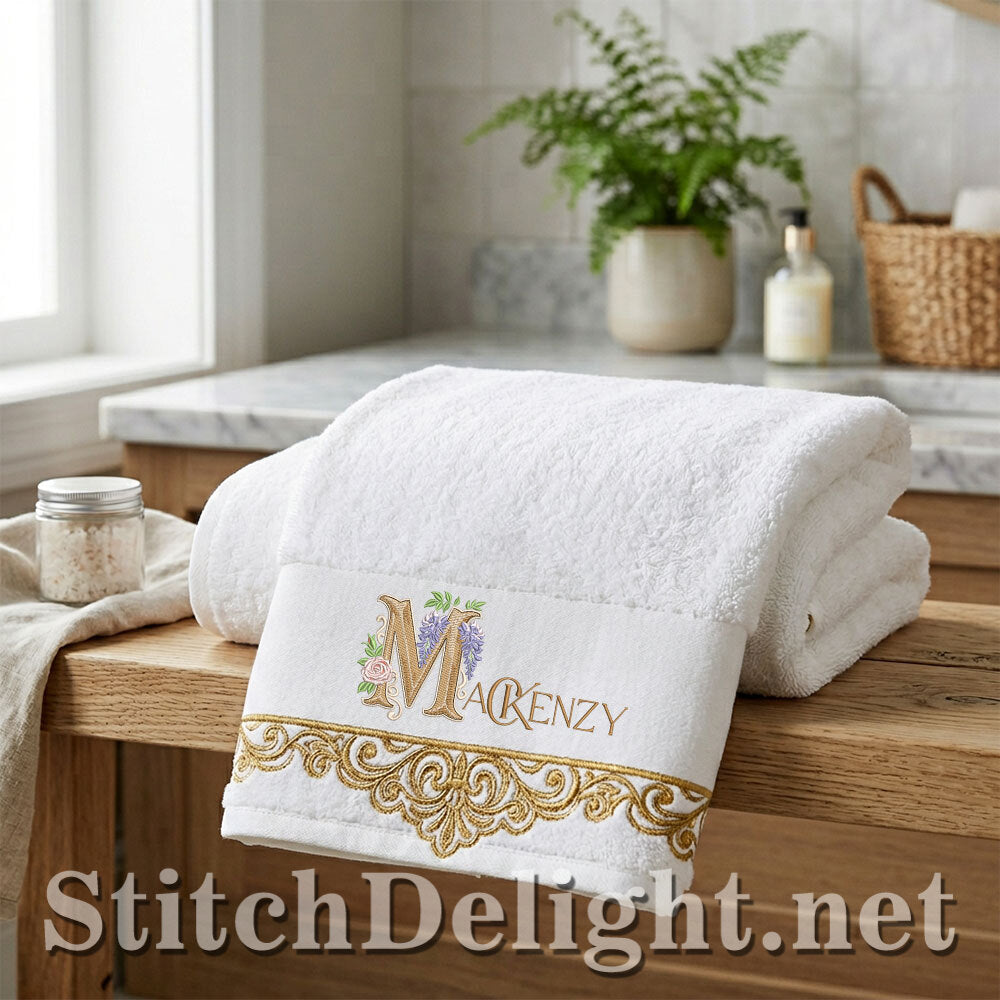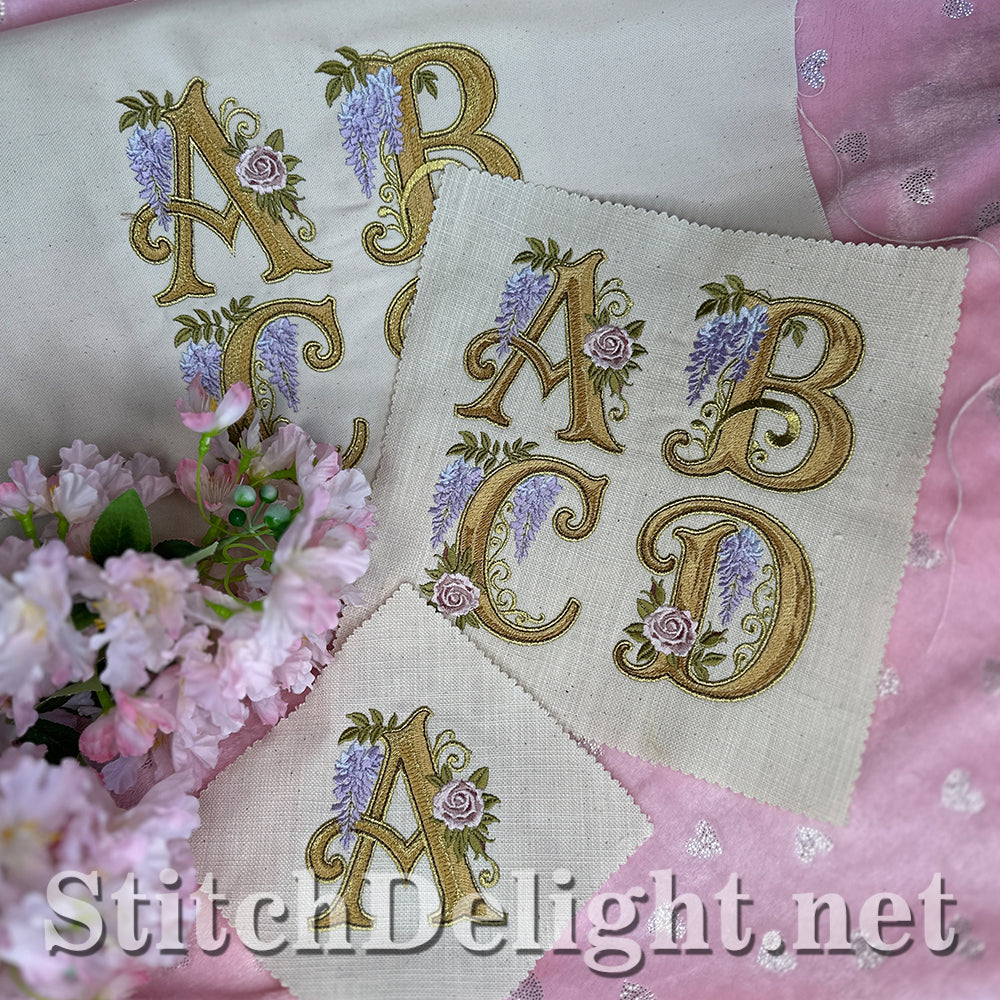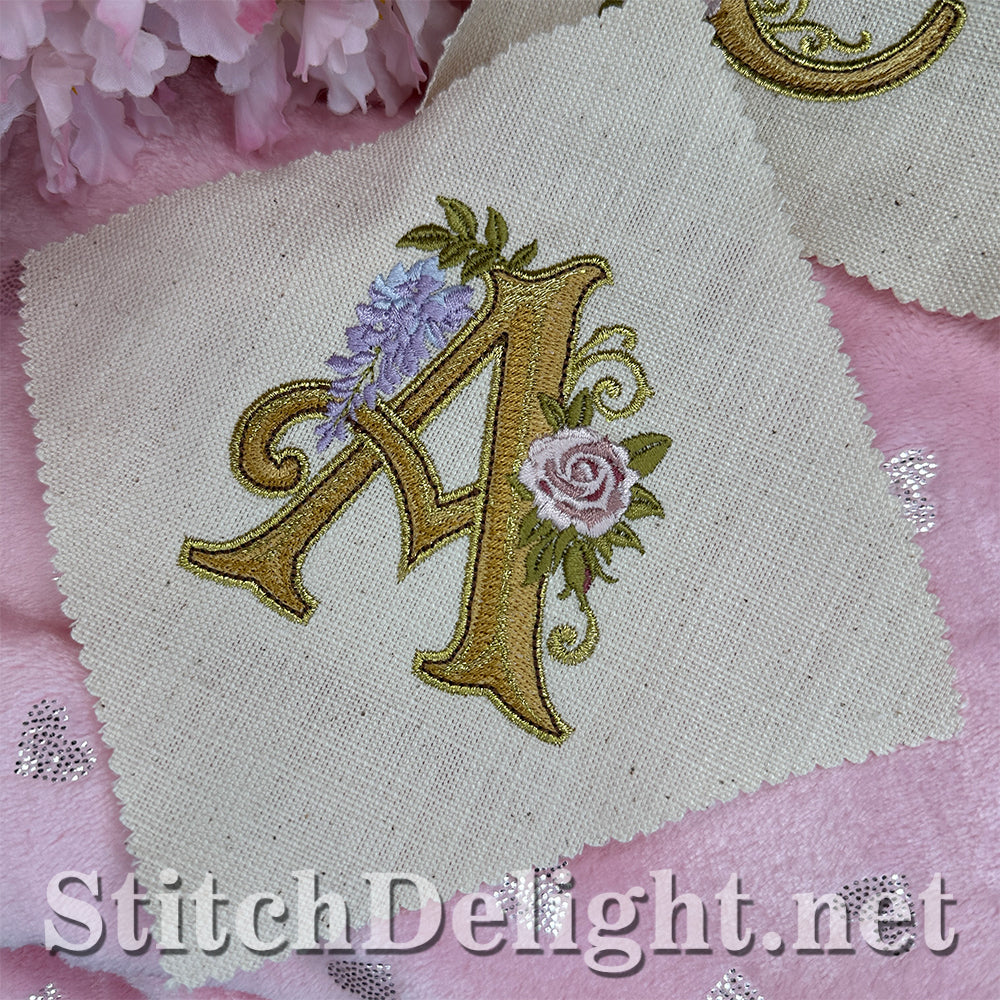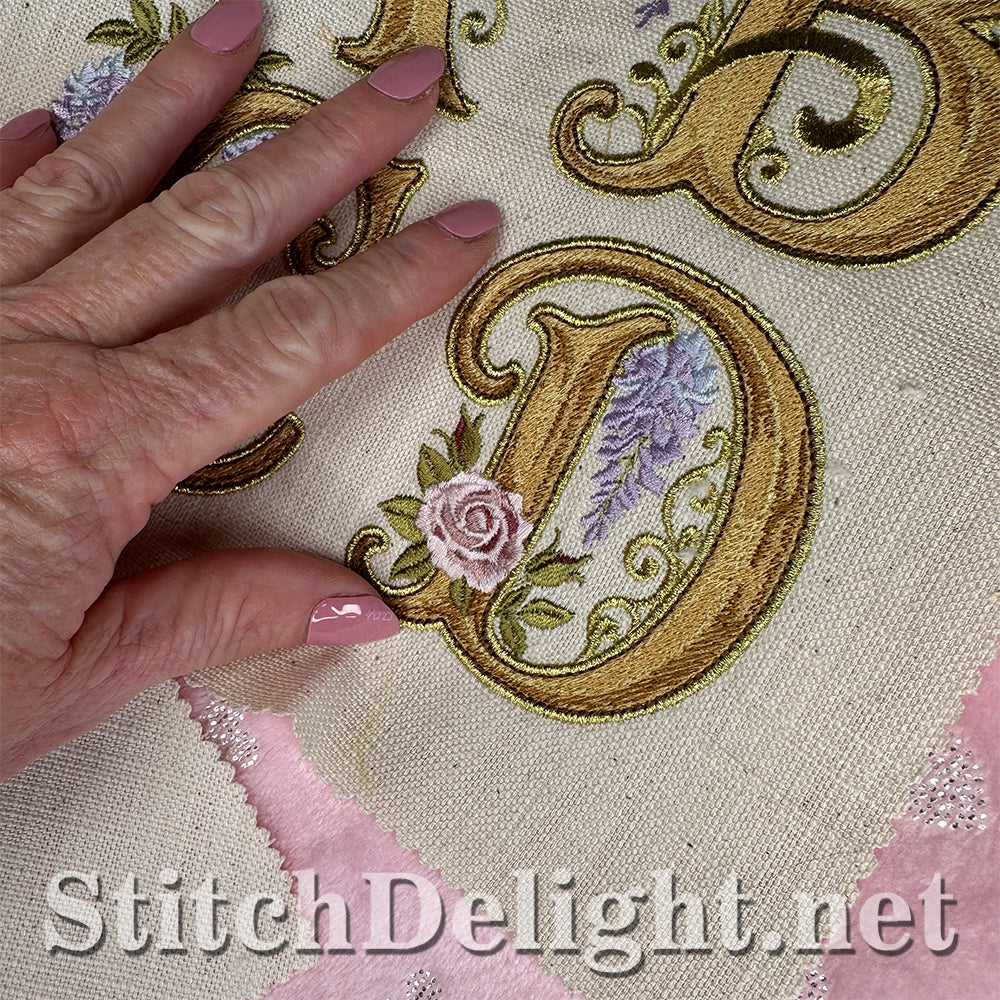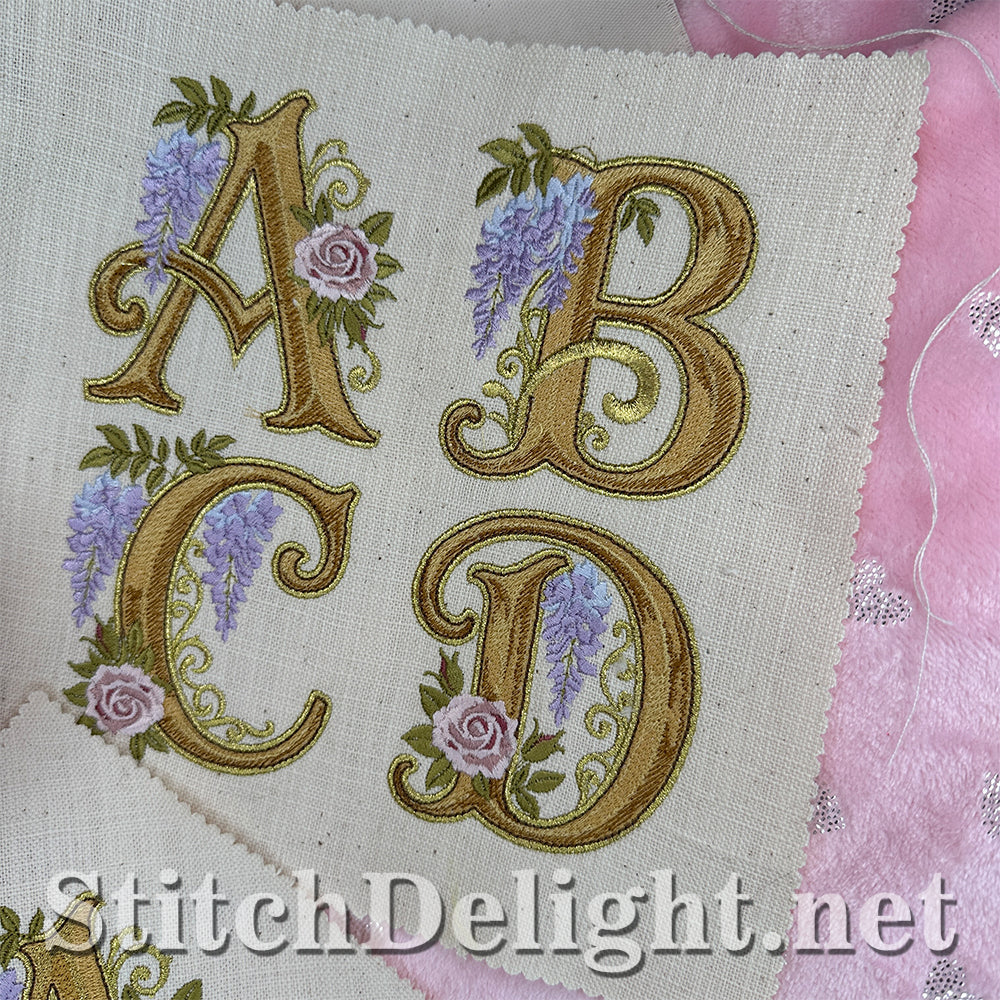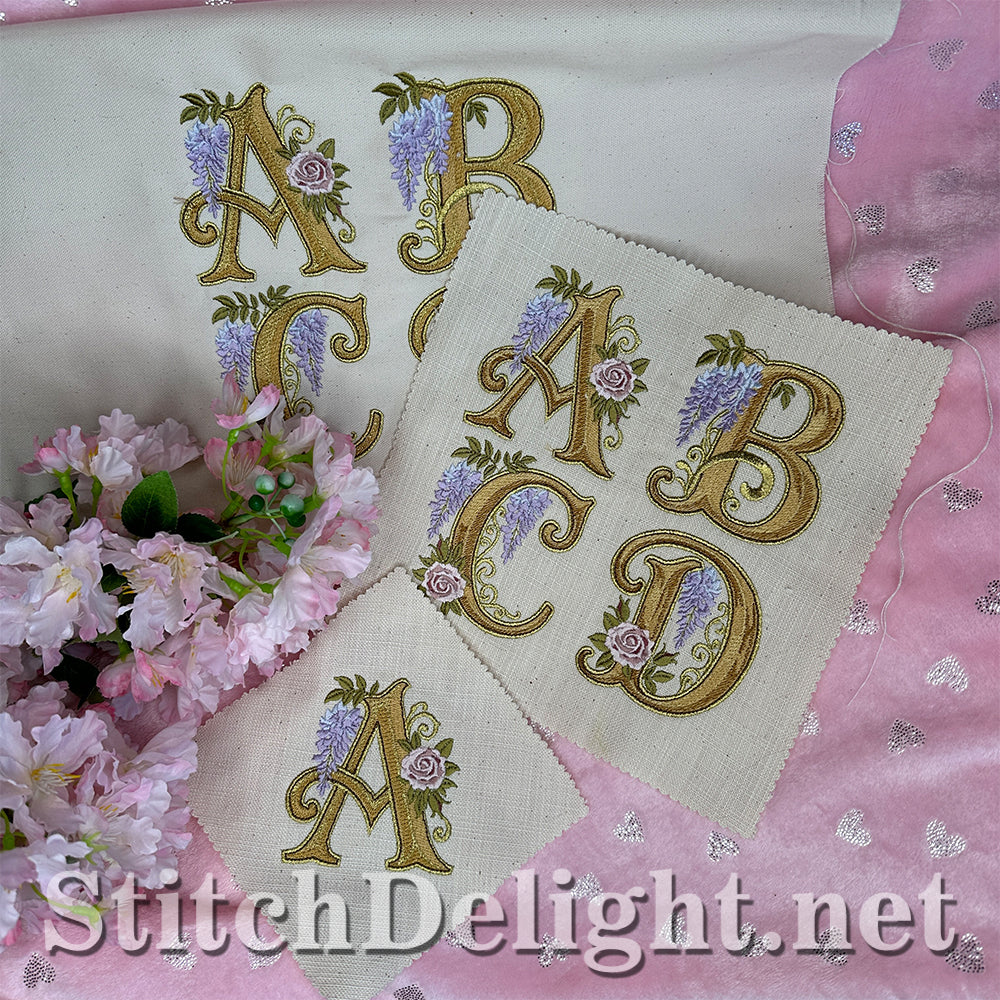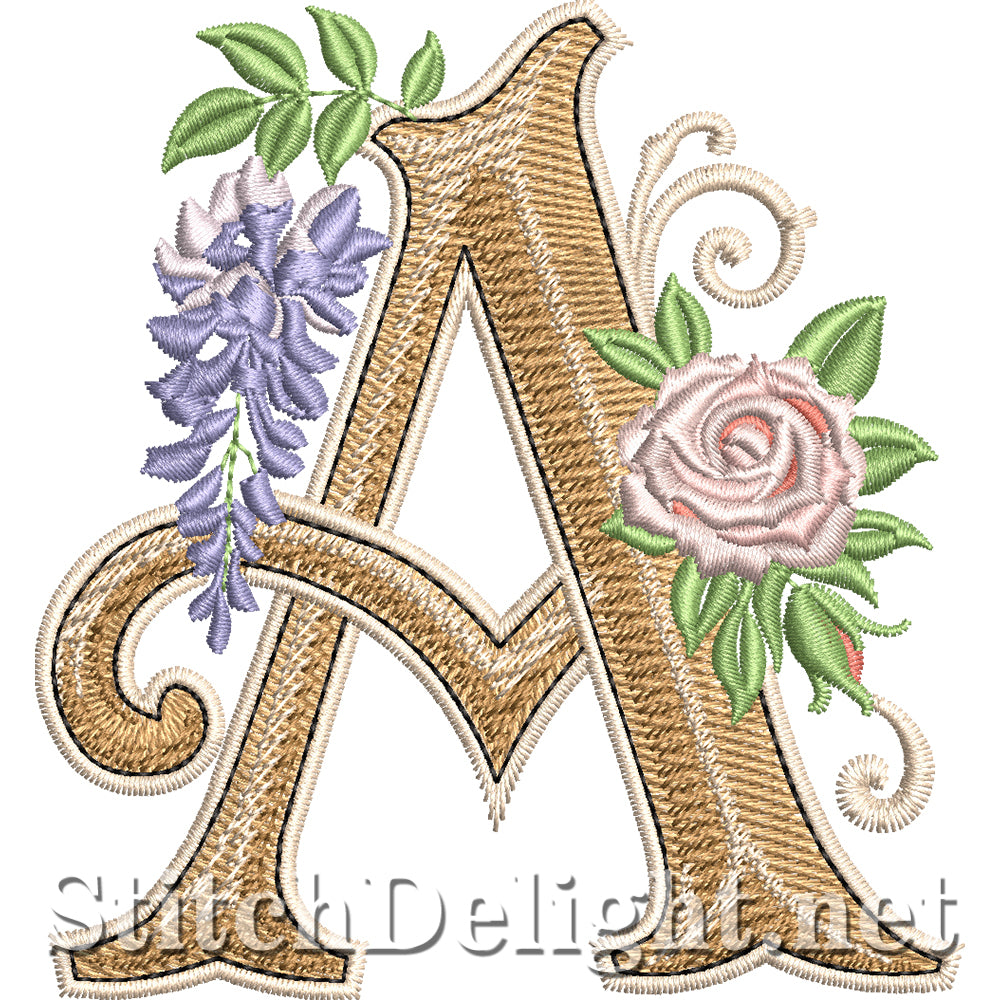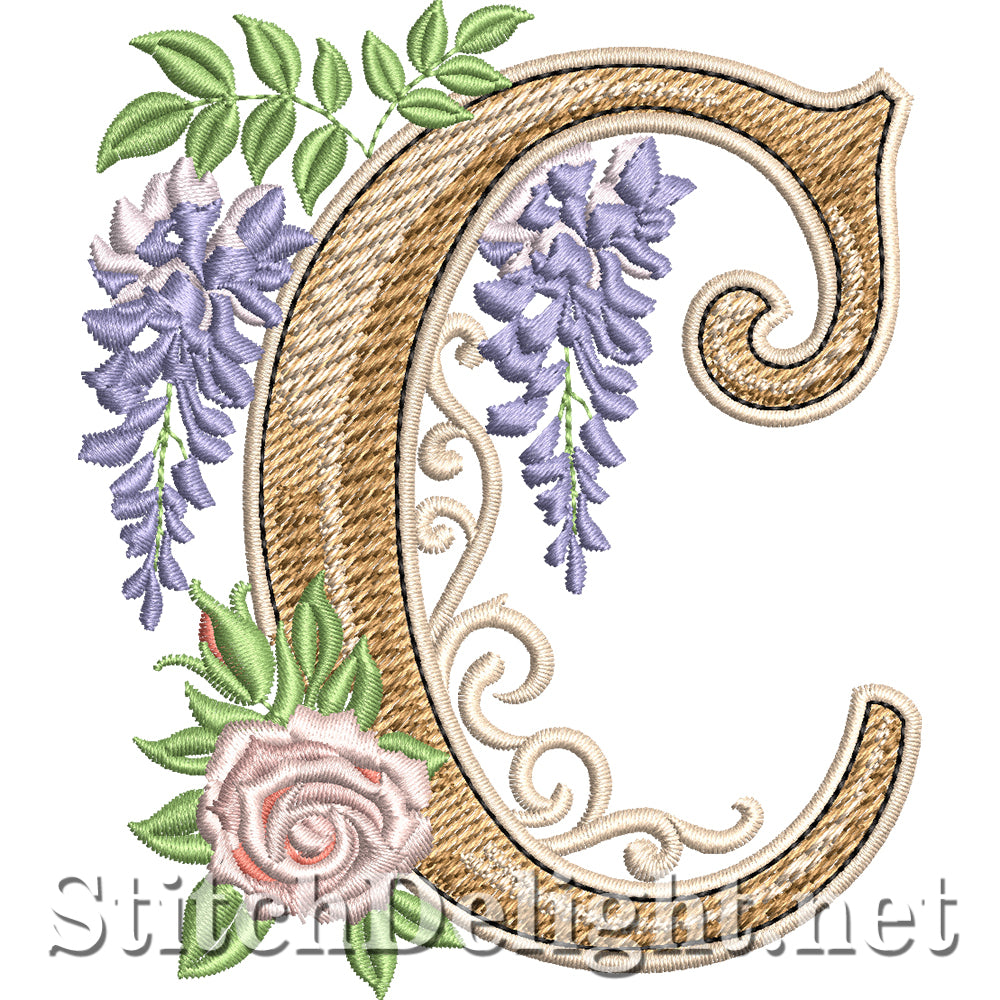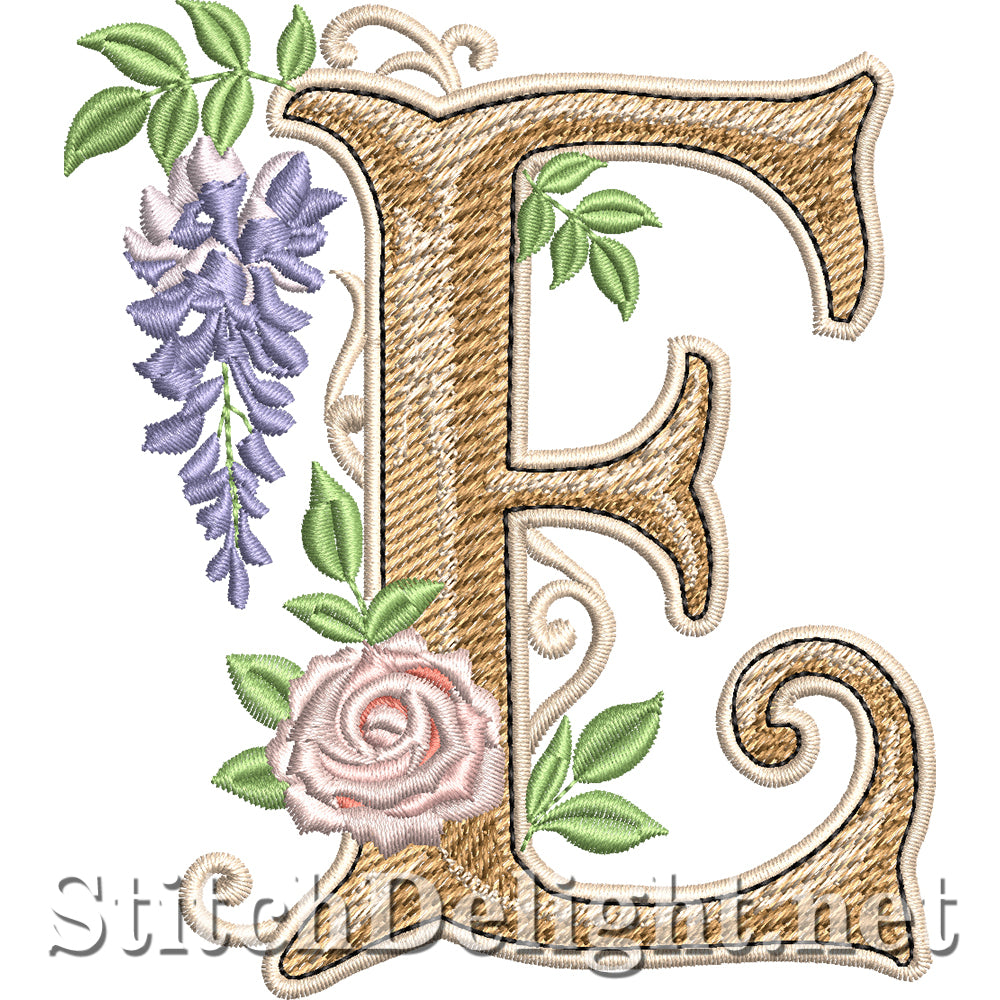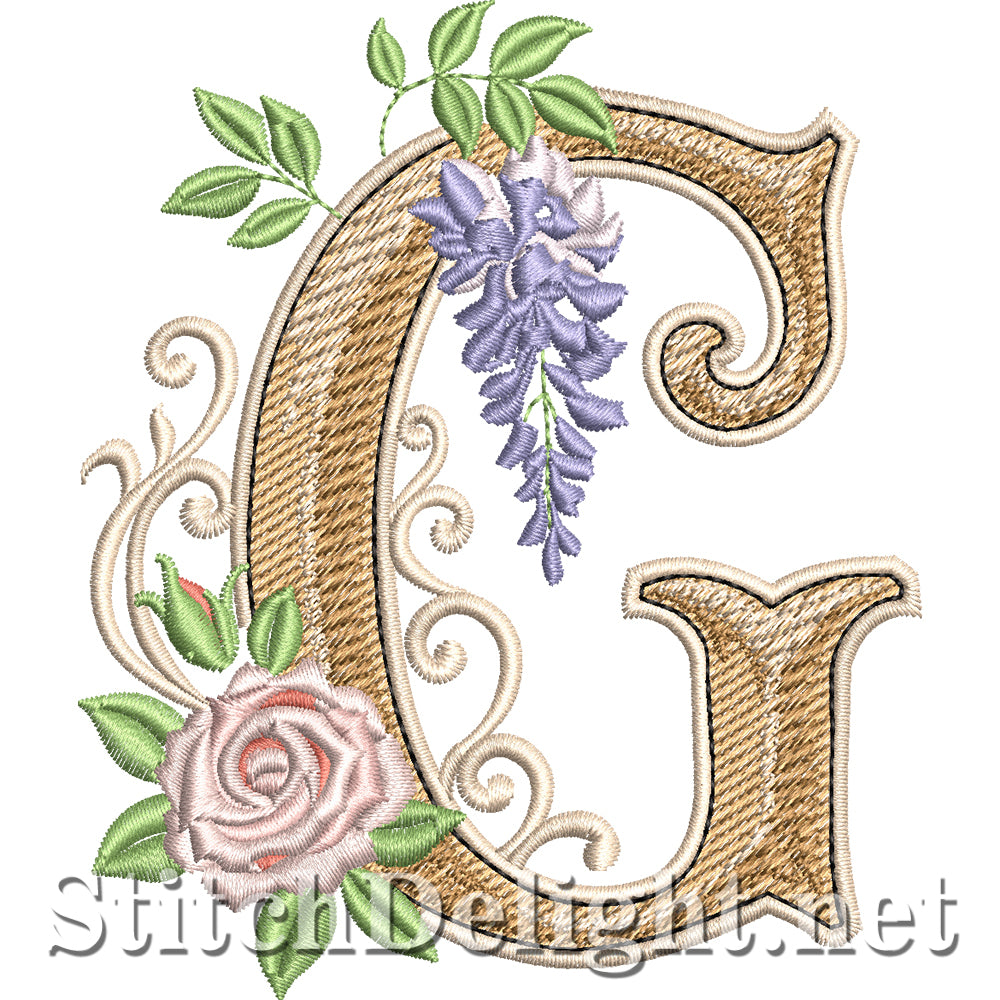
🌸 Floral Picture Font – A Touch of Bridgerton Elegance
Step into a world of timeless romance with our Floral Picture Font — a design inspired by the refined beauty and delicate detailing of the beloved Bridgerton series.
Each letter is more than just a character… it’s a miniature work of art.
Adorned with soft florals, graceful scrolls, and classic ornamental styling, every letter captures that signature Bridgerton charm — elegant, feminine, and effortlessly luxurious.
🌼 Designed for Practical Beauty
With a letter height of 92mm (approx. 3.6 inches), this font is perfectly suited for:
- Towels & bath sets
- Tote bags & pouches
- Cushion covers
- Table linens
- Gift items
- Boutique products
- Hoop art & décor
- Wedding & housewarming gifts
🌷 Expand Your Creative Story
This font was created to fit beautifully into a romantic, vintage-inspired design style — perfect for building your own embroidery collections.
Pair it with simpler fonts to create:
- Elegant monograms
- Personalized gifts
- Layered text designs
- Boutique product ranges
- Coordinated décor sets
🌺 More Than a Font – It’s an Experience
This Floral Picture Font brings together:
✔ Romance
✔ Elegance
✔ Practical stitching
✔ Timeless design
If you’re drawn to soft florals, classic beauty, and designs that feel like they belong in a grand estate… this one will stitch up like a dream.
💐 Create something worthy of a period romance.